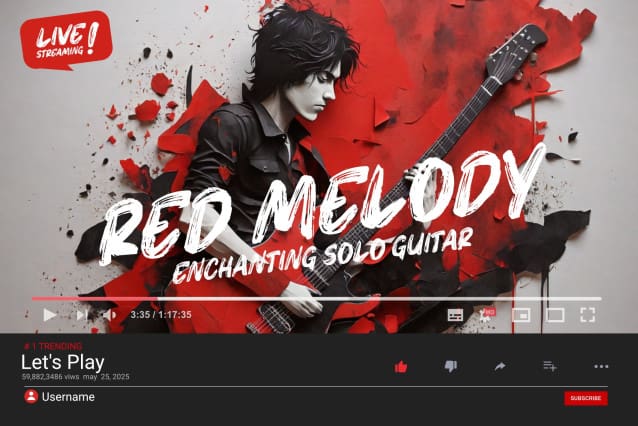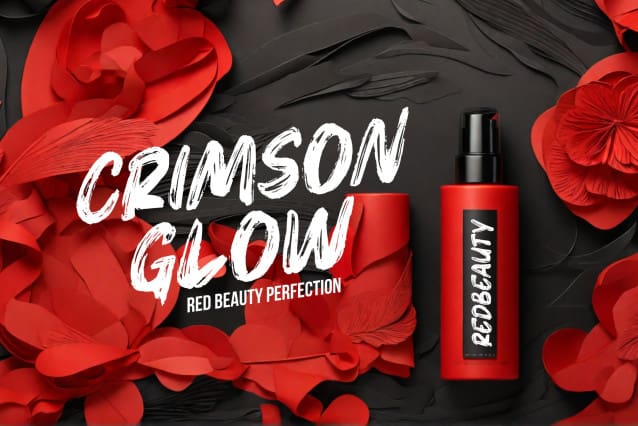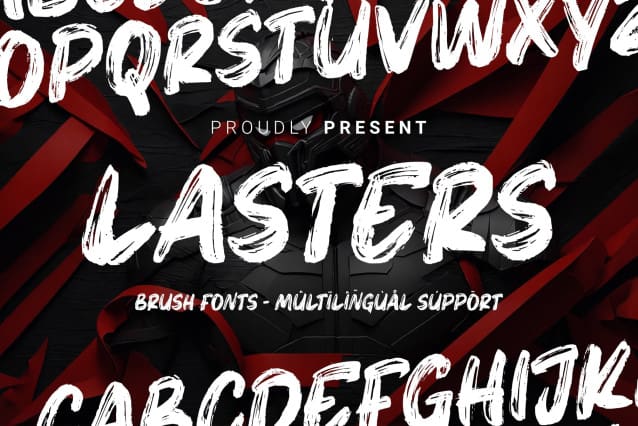
Lasters Brush Font
Lasters Brush Font, is a natural brush font that offers a harmonious blend of natural beauty and professionalism. With soft brush strokes and well-defined letter flows, each character in Laster brings a touch of gentleness and creativity to professional design. With high readability and distinctive typography, Laster is suitable for various design projects, from striking headlines to medium-sized text. The perfect choice for creating stunning and sophisticated designs with a captivating natural touch.